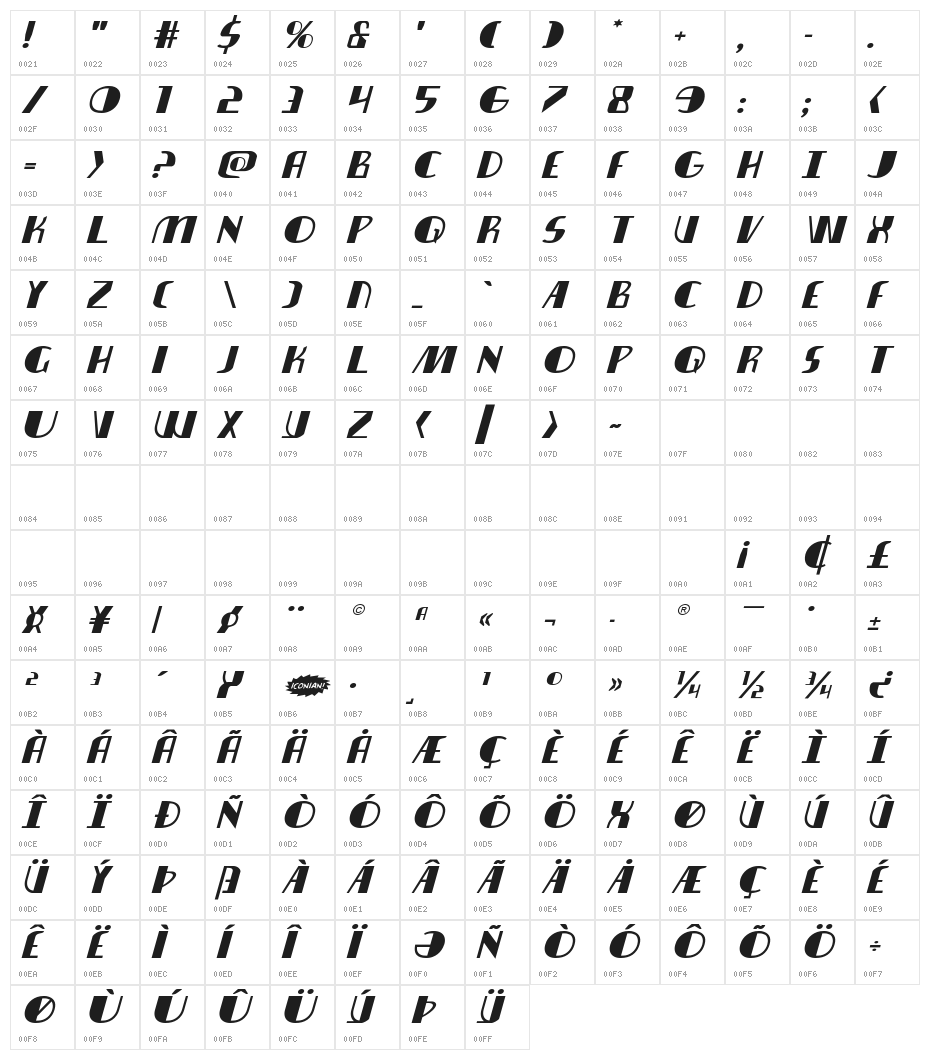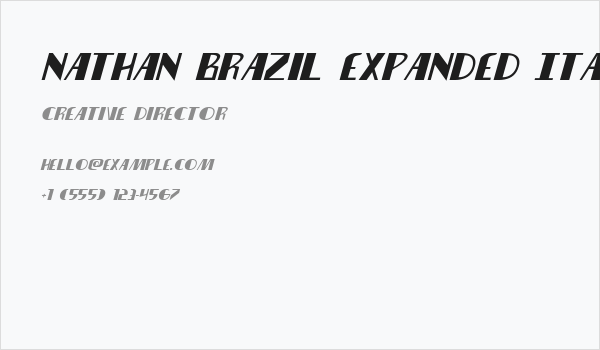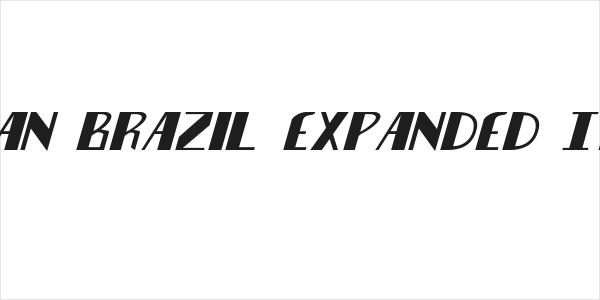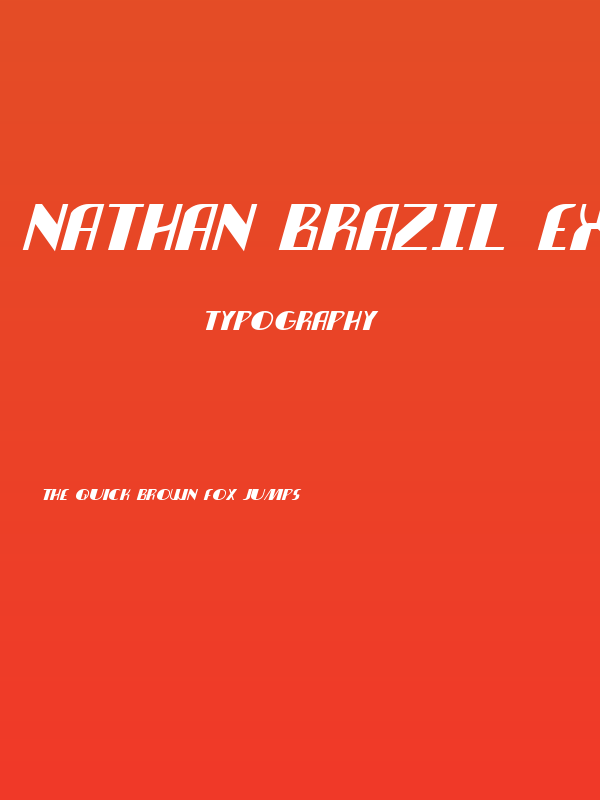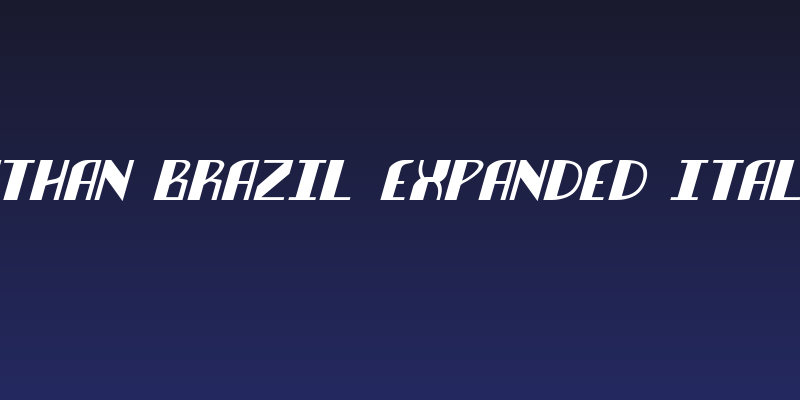
Nathan Brazil Expanded Italic Font
Nathan Brazil Expanded Italic Description
This font features a bold and dynamic style with a distinct italic slant, giving it a sense of motion and energy. The characters are expanded, providing a wide and open feel that enhances readability while maintaining a unique aesthetic. The strokes are thick and consistent, contributing to a strong visual impact. The design incorporates sharp angles and smooth curves, creating a modern and stylish appearance. The font includes a full set of uppercase and lowercase letters, numerals, and a variety of special characters, making it versatile for various design needs.
| Proposed Projects | Ideal for branding, advertising, headlines, and poster design where a strong and modern look is desired. |